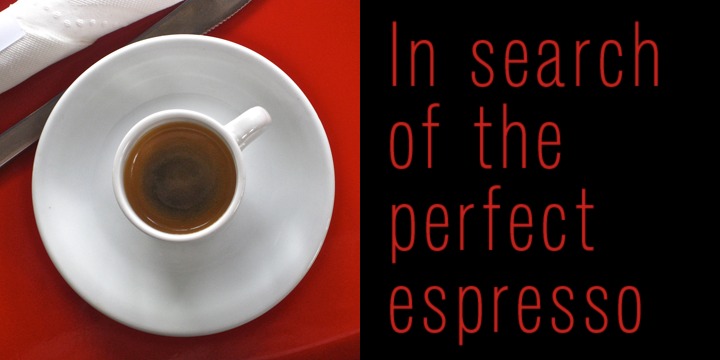
CastleType was commissioned in 1991 by San Francisco Focus magazine to digitize three members of the Standard family. This is a Continental lineale that was popular in Switzerland in the 1950s and later in the United States. A cousin to the ubiquitous Helvetica and very similar to Akzidenz-Grotesk, Standard is an alternative that is considerably warmer and a bit more idiosyncratic. More…